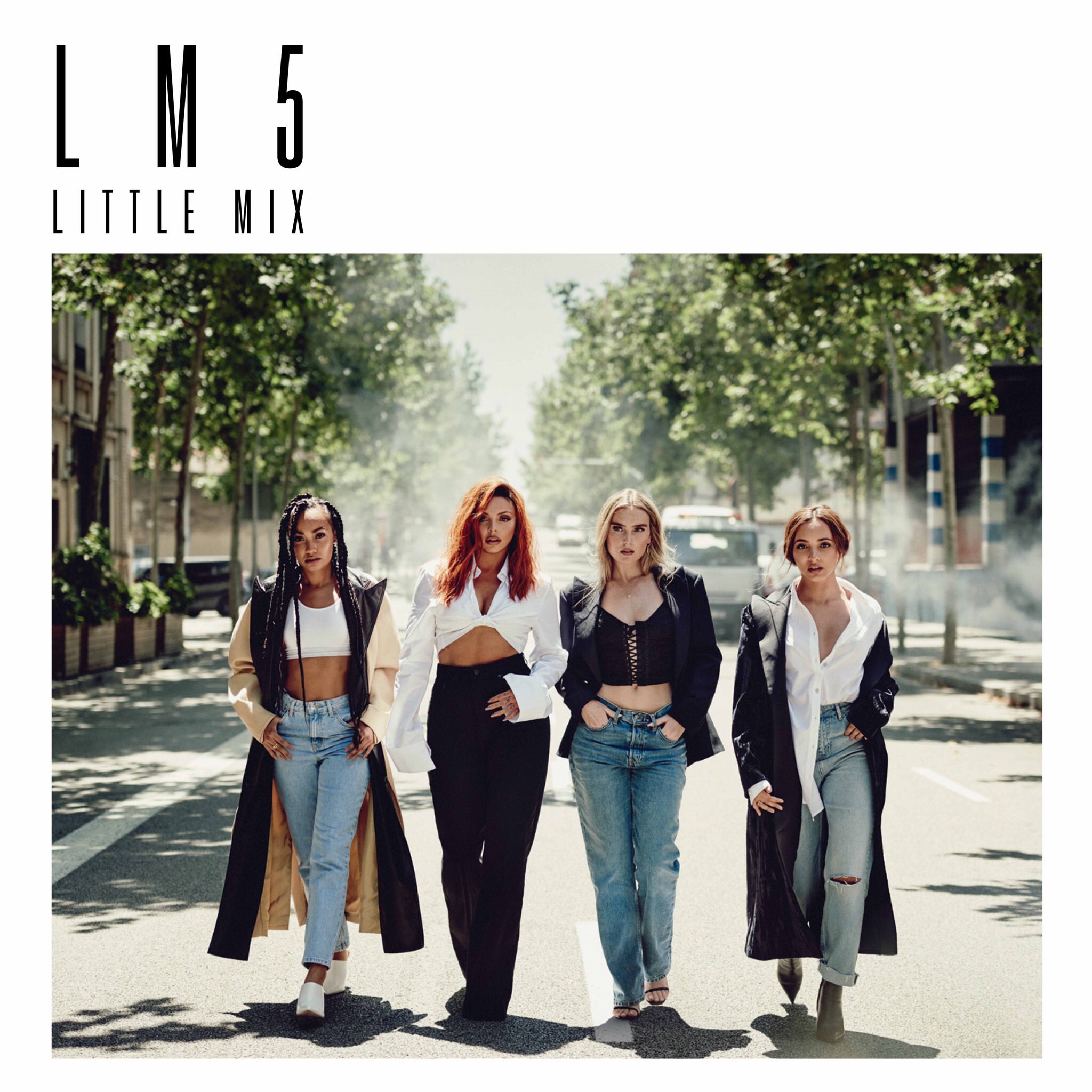
LM5 (Little Mix) Font
Fonts in UseLM5 is the fifth studio album by British girl group Little Mix, released in 2018. It features a mix of pop, R&B, and electronic dance music.